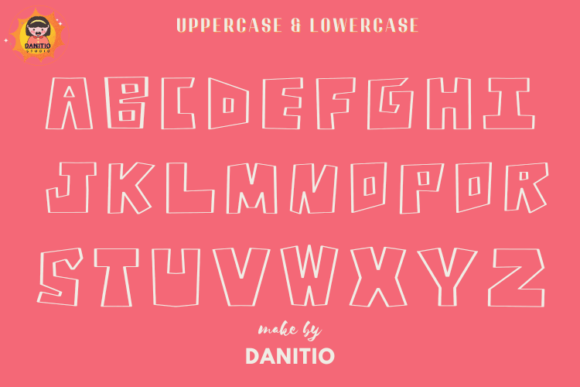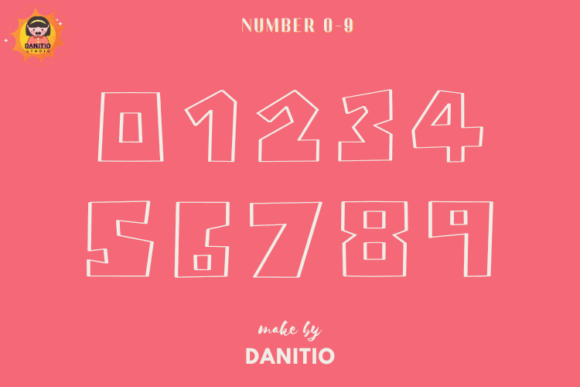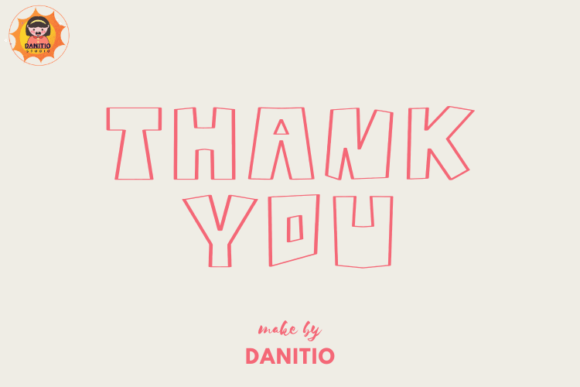
Introduction to Culminate Font
Have you ever stumbled upon a design resource that makes your creative project shine? For many designers, that moment of discovery is what keeps them inspired and motivated. I’m excited to share with you a font that has captured the hearts of designers around the world – the Culminate Font. With its clean lines and square edges, this lovely display font exudes a timeless charm that’s perfect for vintage-inspired logo and packaging designs.
Whether you’re a seasoned designer or just starting out, the Culminate Font is a valuable addition to your toolkit. Its simplicity and readability make it a versatile choice for any creative endeavor, from branding and marketing materials to social media graphics and more. Plus, with a transparent background, you can easily incorporate it into your designs without any distractions.
Key Features of Culminate Font
- High-quality design resource: Culminate Font is a professional-grade font perfect for creative projects, offering a unique blend of style and sophistication.
- High-resolution design: Culminate Font is designed at a high resolution (300 DPI) to ensure crisp and clear typography, perfect for print and digital applications.
- Unique characteristics: Culminate Font features a distinctive and modern design aesthetic, making it an excellent choice for designers looking to add a touch of elegance to their creative project.
- Perfect for creative projects: Culminate Font is ideal for use in a variety of design applications, including logos, branding, and packaging, as well as digital projects such as web design and social media graphics.
Honest Review: Culminate Font
I recently had the opportunity to work with the Culminate Font, and I must say it’s been a game-changer for my creative projects. The high quality of this font is truly exceptional, making it a valuable design resource for any designer.
- ✨ Beautiful Typography: The Culminate Font features elegant and refined typography that elevates any design to the next level.
While the Culminate Font is a fantastic addition to any design arsenal, there are a few limitations to keep in mind:
- ⚠️ Limited Character Set: The font’s character set is somewhat limited, which may not be ideal for designers working on complex projects.
- ⚠️ Not Ideal for Small Text: I found that the font can be difficult to read in small text sizes, which may require some adjustments in design.
Overall, I’m thoroughly impressed with the Culminate Font and would highly recommend it to designers working on creative projects. Its high quality, beautiful typography, and transparent background make it a valuable asset in any design resource collection.